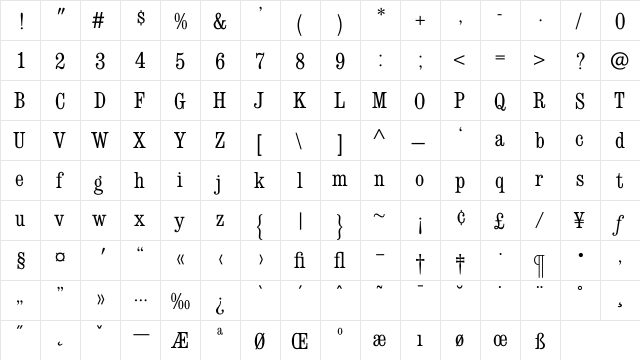
ConsortLightCondensed Regular Font Preview
Design Context for ConsortLightCondensed Typeface
ConsortLightCondensed takes a measured approach to typography — its balanced proportions and neutral character make it a reliable workhorse for both digital and print work. The delicate stroke weight brings airiness and refinement to layouts. Its narrow stance lets it pack a punch even in space-constrained designs.